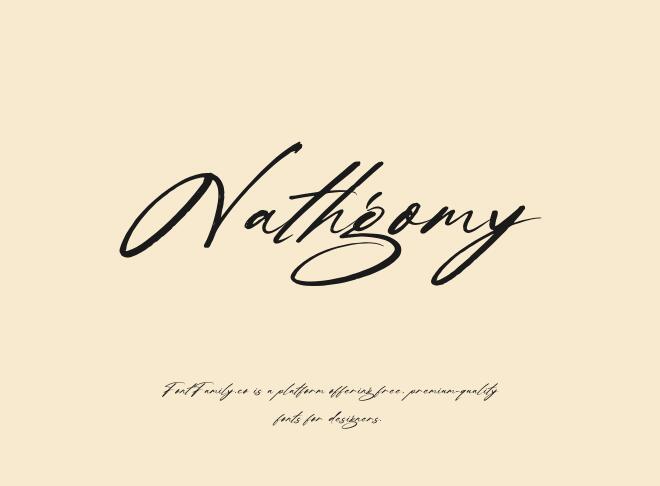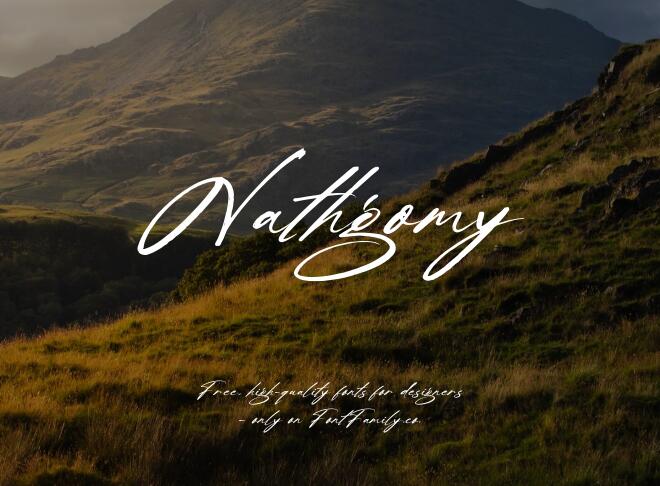
Nathgomy Font
Nathgomy Font is a captivating modern script font that exudes elegance and sophistication. Crafted by the skilled hands at Nathgomy Design Studio, this font is a visual delight with its smooth curves and flowing letterforms, making it perfect for invitations, logos, and branding. It presents a handwritten feel that adds a personal touch to your designs. Nathgomy Font stands out in the realm of script fonts with its unique style that combines modern aesthetics with a hint of classic elegance. Ideal for those seeking a font that can make a strong impression, Nathgomy Font is a great choice for designers aiming to infuse a sense of refined beauty into their work. Its free personal use license makes it an affordable choice for hobbyist designers and professionals alike.